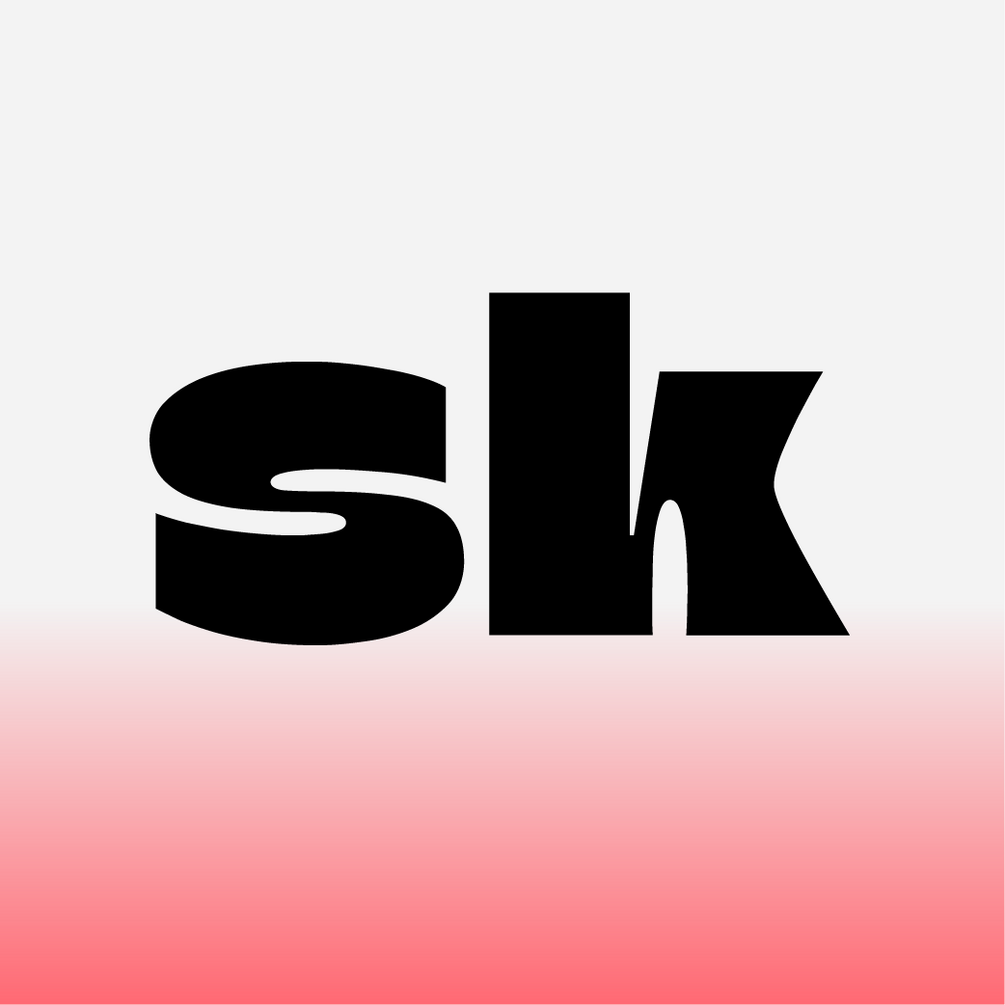
SK DayOff
About font:
SK DayOff is a dynamic and playful typeface with a vibrant personality. It combines smooth curves and unusual proportions, creating a sense of lightness and movement. The soft contours and rhythmic lines give the typeface a relaxed and energetic appearance, reflecting an atmosphere of freedom and carefree joy. The typeface is available in five styles, ranging from Reclined to Italic, allowing you to customize the mood and flexibility of your design. SK Day Off supports extended Cyrillic and Latin scripts, offering a wide variety of design possibilities, making it an ideal choice for bold and unique projects.